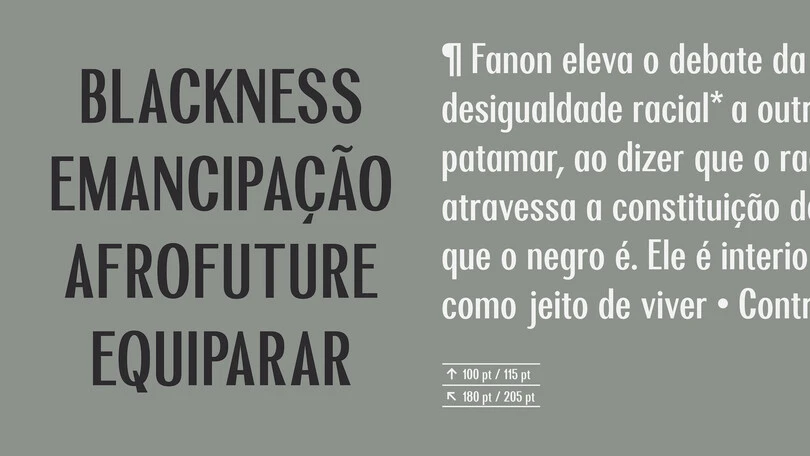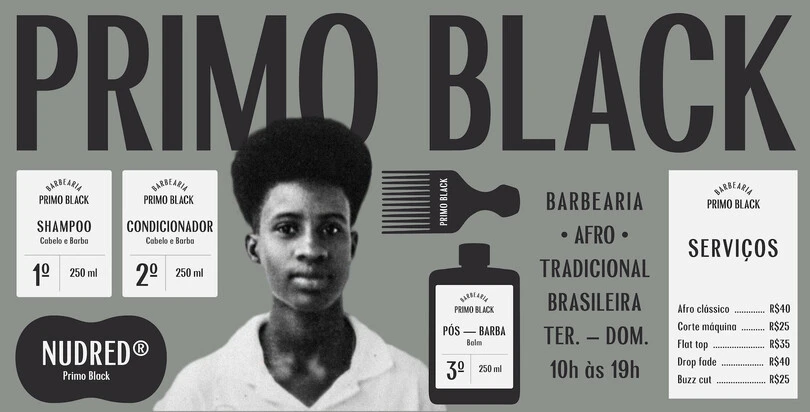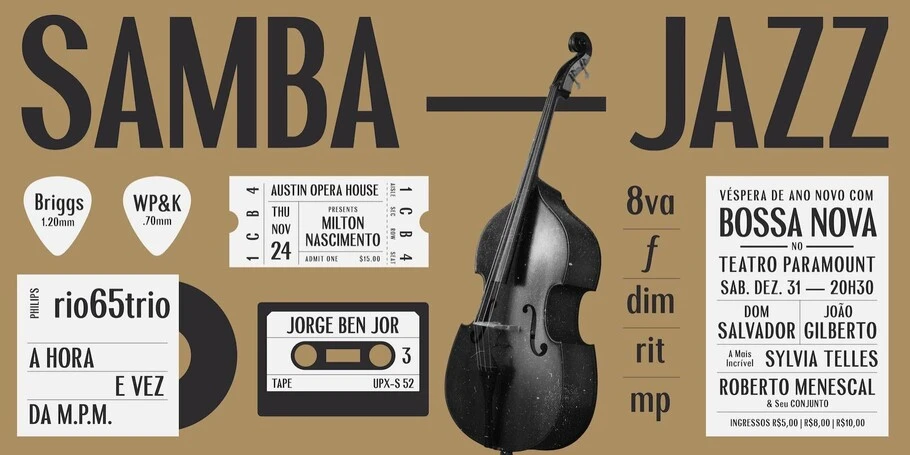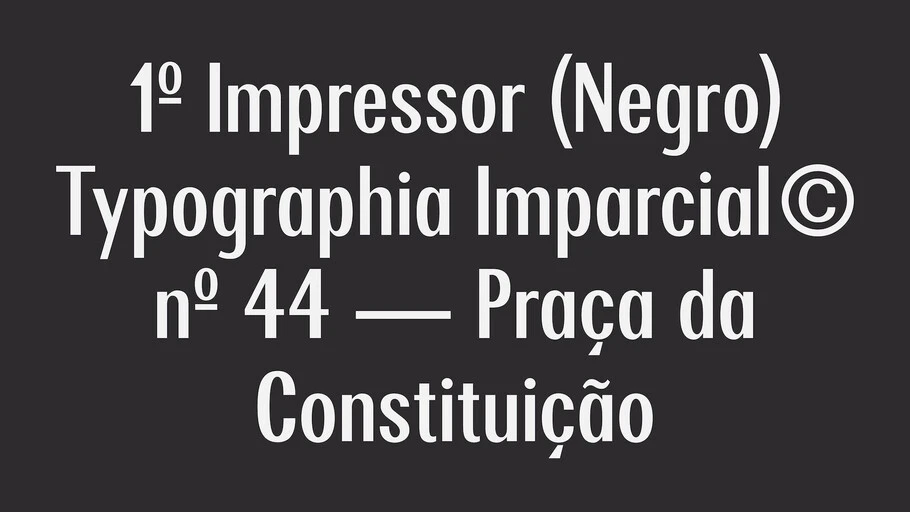
Meet the 2024 Adé Hogue Scholarship recipient: Patrick Guanaz.
Patrick Guanaz.
Every year, Monotype and the Type Director’s Club (TDC) award the Adé Hogue Scholarship to an outstanding US-based BIPOC student entering the design industry. This prestigious scholarship, formerly called the “Superscript Scholarship” pays tribute to Broderick “Adé” Hogue, a Chicago-based art director and letterer who was tragically killed in 2021 at the age of 32 while cycling in Chicago’s Near North Side.
This merit-based scholarship helps pay the tuition for one BIPOC student, a rising senior, whose design work demonstrates exceptional talent, sophistication and skill in the use of modern typography.
We spoke with the 2024 scholarship winner, Patrick Guanaz, a senior at Centro Universitário Senac in São Paulo, Brazil. Patrick’s mastery is evident across various design domains, including identity, packaging, editorial, environmental graphics, and signage, demonstrating his grasp of design’s cultural implications. His dedication to his craft was first acknowledged when he was named a finalist at the Latin American Design Awards 2024 for the Reparação Bold project. We spoke about design as activism, his love for research, and “straightforward” design.
What made you decide to study design—were you always interested in creative pursuits?
Yes! When I was a kid, I used to spend hours upon hours drawing and I had an extensive collection of stickers, I simply loved staring at captivating visuals. Then, as I got older, the admiration for the things I saw transformed into passion for making things of my own. But I guess the real pivotal moment was when I started researching design and discovered all the qualities I would have to develop as a person to become a great designer.
How would you describe your design style?
I like to approach every project by putting significant emphasis on the research, this to me is a way of expanding the possibilities of making strong, unexpected connections. As far as the visual language goes, I would say my work can be described as straightforward, not in a simple manner, I refer to a straightforwardness that is achieved by removing the excesses after an assiduous experimentation process.
How do you use design as activism? Tell us about the process of designing Reparação Bold.
To be honest, with Reparação Bold the goal was not activism at first, it was something that grew as a spontaneous response to the project’s needs. When it came time to design my first typeface, I knew I wanted to do something related to my identity. Being Black and Brazilian, I felt I had not dived deep enough into these questions to make sense of some of my experiences, and when you investigate, a lot of the problems we are exposed to as people of color here are closely related to the slavery economy that founded the country, this, coupled with the Black Brazilian historic of resistance made activism a clear path.
Can you share some of the real-world problems you’re particularly interested in tackling with design?
When I first fell in love with design, I had an overly idealized view of what design can do, that was followed by a period of uncertainty. What’s interesting is that the more I learned, the more I started to see realistic ways in which we can have an impact in society. People’s behaviors are dictated by culture, that’s where we, as designers, have the power to inspire change through the messages we shape. I am particularly interested in partnering with brands, nonprofits and cultural institutions to work on projects that empower marginalized communities and promote upward social mobility.
What role do you think type can play in these kinds of projects?
Through carefully curated/designed letter forms and adequate, innovative composition, typography plays a fundamental role in making information more compelling, memorable and easier to understand so there’s as little friction as possible between communicating a message and positively changing people’s behavior.
What kinds of projects are you working on lately?
I am working on an academic branding/packaging project for a non-alcoholic drink that fosters inclusion by celebrating the growing community of people that choose to stay sober but do not want to be excluded from social gatherings. I am also doing research for a display type design project inspired by the cut-and-fold sculptures of Brazilian concretist, Amilcar de Castro.
How did you hear about the Adé Hogue scholarship?
I’ve been following the Type Directors Club for a while now, so the scholarship is something that has been in the back of my mind for some time. I would literally open the TDC website here and there to see if the application was open.
What do you think made you stand out as a winner for the scholarship?
It’s difficult to be sure what exactly made me stand out among so many talented individuals in the type community, but I do my best to serve a bigger purpose with the projects I work on, so possibly that resonated with the judges.
What does the award mean to you personally?
Winning this award means the world to me! A lot of dedication goes into pursuing excellence in the projects I do, so being recognised is a validation of this effort, a sign that I am on the right path and an invitation to keep pushing the boundaries of what I am capable of.